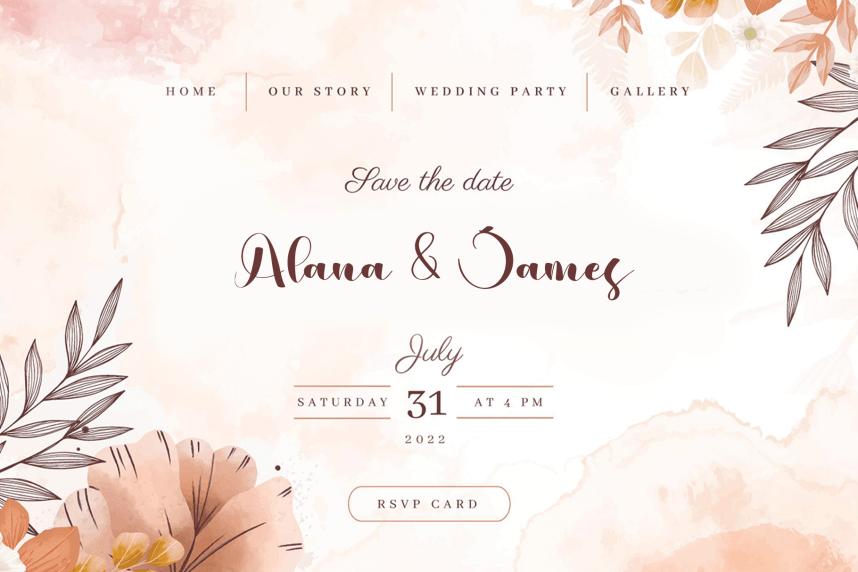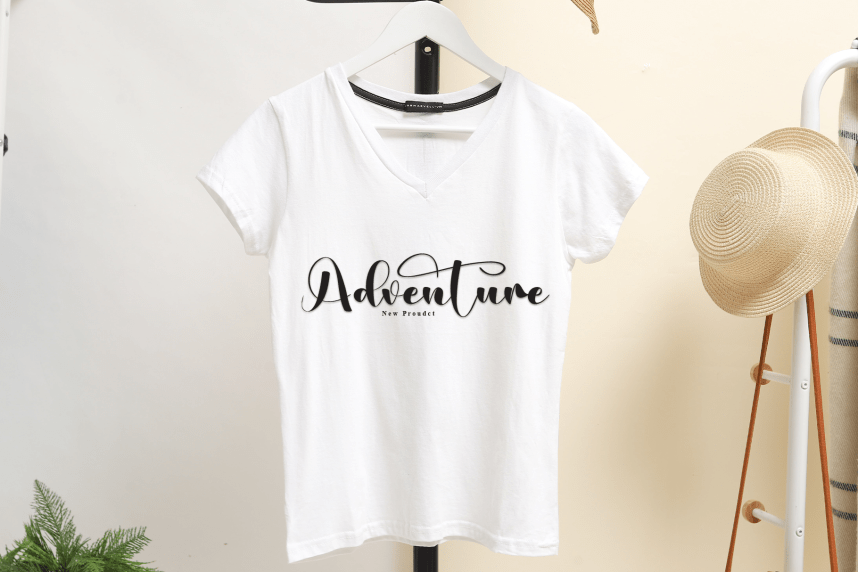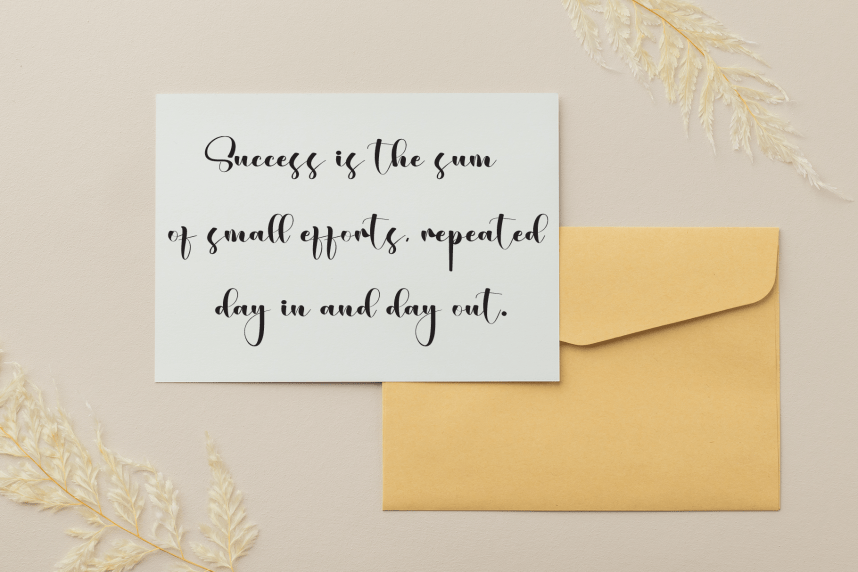
Auntie – Elegant Handwritten Font, special creative products for you, our products will give you an extraordinary experience. the latest style letters are perfect for wall displays, wedding invitations, social media post logos, advertisements, product packaging, product designs, labels, photography, watermarks, invitations, stationery, and any project that requires taste handwriting.